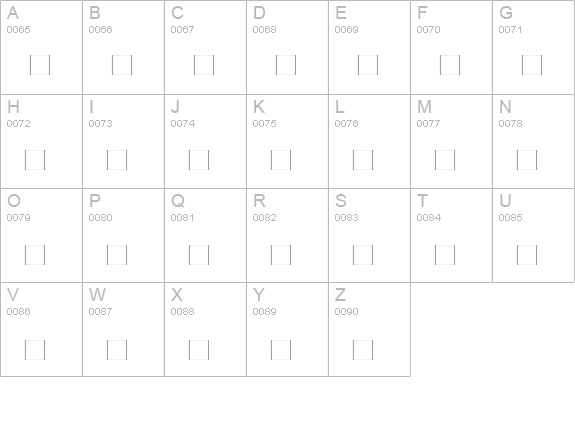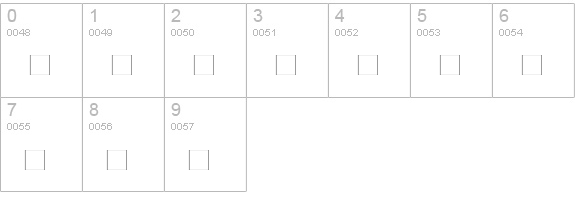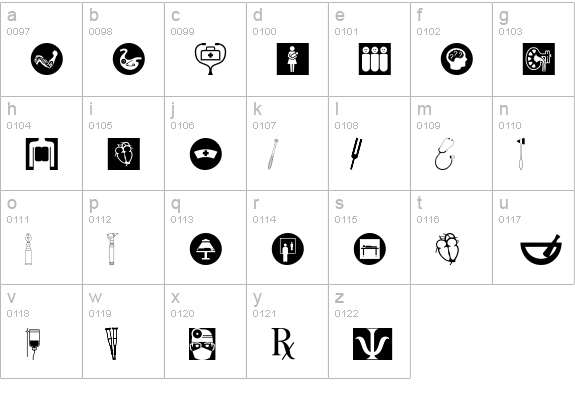
HealthcareSymbols Font Details
HealthcareSymbols font is a versatile and comprehensive collection of symbols designed specifically for healthcare professionals. This font covers a wide range of medical symbols and icons, making it an invaluable tool for doctors, nurses, pharmacists, and other healthcare practitioners. With HealthcareSymbols font, you can easily enhance your medical documents, presentations, and graphics with visually appealing and easily recognizable icons. From basic medical symbols like stethoscopes and syringes to more specialized icons representing different medical specialties, this font has it all. The clean and crisp design of HealthcareSymbols font ensures that the symbols are easily legible even at smaller sizes, making it perfect for use in both print and digital media. The consistent and cohesive style of the symbols ensures that they seamlessly integrate with your existing typography and design elements. One of the best features of HealthcareSymbols font is that it is available for free download at FontsMarket.com. This means that healthcare professionals can easily access and use this font without any cost. Whether you are a medical student, a healthcare administrator, or a designer working on healthcare-related projects, this font offers a convenient and cost-effective solution. In addition to being freely available, HealthcareSymbols font also offers a wide range of customization options. You can easily adjust the size, color, and style of the symbols to fit your specific needs and preferences. This flexibility allows you to create unique and personalized designs that effectively communicate your healthcare message. Overall, HealthcareSymbols font is a must-have resource for anyone working in the healthcare industry. Its extensive collection of symbols, user-friendly design, and free availability make it an invaluable asset for enhancing medical communications. Download HealthcareSymbols font today from FontsMarket.com and take your healthcare designs to the next level.